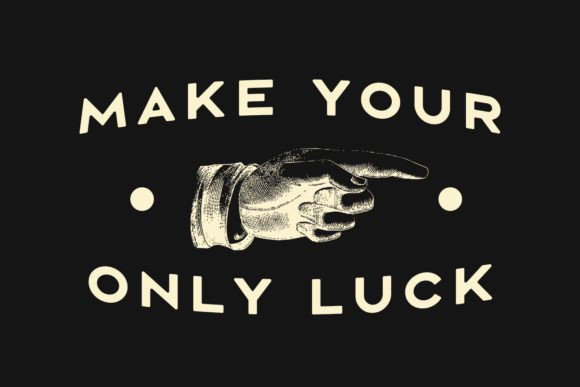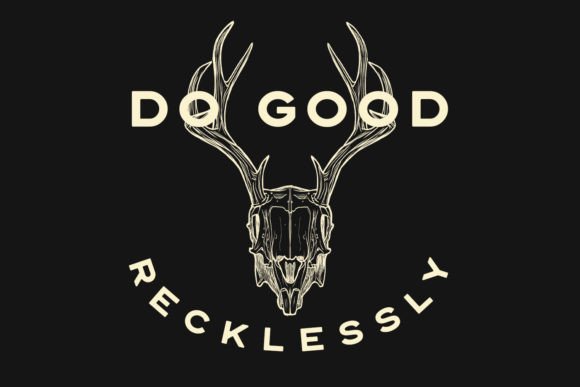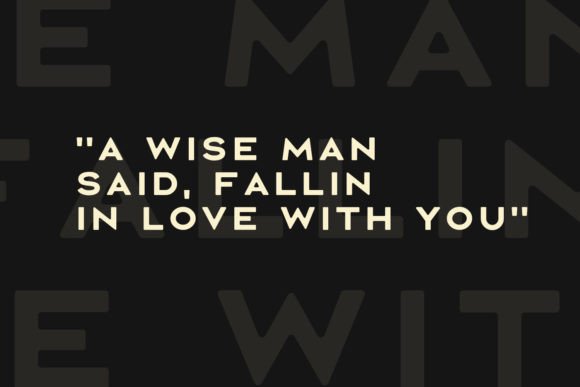
Introduction to Luck Flag Font
As designers, we’ve all been there – staring at a blank canvas, waiting for the perfect idea to strike. For some, it’s the sound of a keyboard clacking away, while for others, it’s the feel of a pencil scratching across paper. For me, it’s the thrill of browsing through free design resources, searching for that elusive font that makes my creative project truly stand out. And that’s exactly what I found with the Luck Flag Font – a retro stamp effect sans serif font that adds a touch of high-quality whimsy to any design.
With its transparent background and free download option, the Luck Flag Font is a valuable resource for designers looking to add a unique twist to their work. Whether you’re crafting a letterhead, title, or stationery, this design resource is sure to bring your creative vision to life.
Key Features of Luck Flag Font
- High-quality, unique font design perfect for creative projects, with a transparent background for seamless integration.
- Unique, hand-crafted design elements that add a touch of whimsy and personality to any project.
- Perfect for use in branding, advertising, and other creative projects where a distinctive, eye-catching font is desired.
Honest Review: Luck Flag Font
- ✨ High-quality design: The Luck Flag Font looks professional and polished, making it perfect for any creative project.
- ✨ Transparent background: This feature allows for seamless integration into any design, giving you complete creative control.
- ✨ Versatile: The font can be used for a wide range of applications, from logos to posters and everything in between.
However, I did encounter a few limitations with the Luck Flag Font.
- ⚠️ Limited character set: The font only includes a limited set of characters, which may not be suitable for all projects.
- ⚠️ Not suitable for small text: The font is best used for larger text sizes, as it can become difficult to read when used for smaller text.
Overall, I’m impressed with the Luck Flag Font and would definitely recommend it to designers looking for a high-quality, free design resource. Just be aware of its limitations and use it accordingly.
Tips for Getting the Most Out of the Luck Flag Font
To get the most out of the Luck Flag Font, use it in combination with other design elements, such as graphics and images, to create a visually appealing design. Experiment with different font sizes and colors to achieve the desired effect.
Common Use Cases for the Luck Flag Font
The Luck Flag Font is ideal for use in creative projects, such as graphic design, digital art, and typography. It can also be used in presentations, documents, and other visual communications.
Is the Luck Flag Font suitable for large-scale designs?
Yes, the Luck Flag Font is designed to be scalable and can be used for large-scale designs without losing quality. The font’s high resolution and transparent background ensure that it looks great even when enlarged. However, please note that the font’s legibility may be affected at very small sizes, so it’s recommended to use it for designs where the font size is at least 12 points or larger.